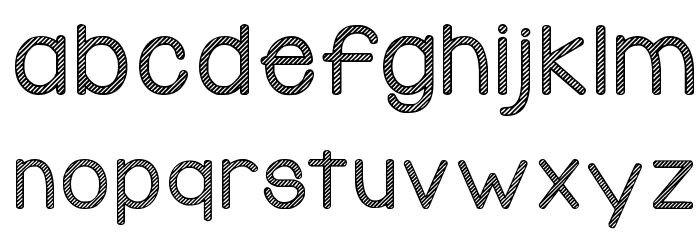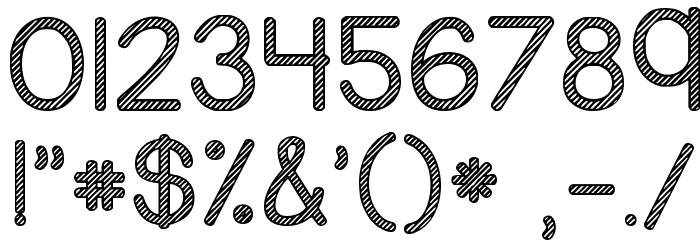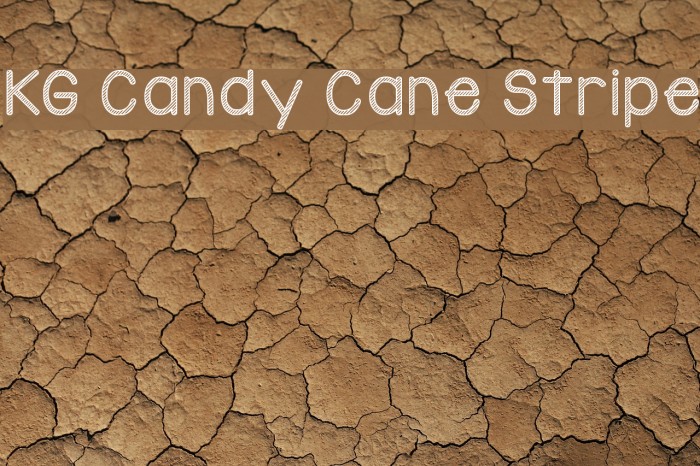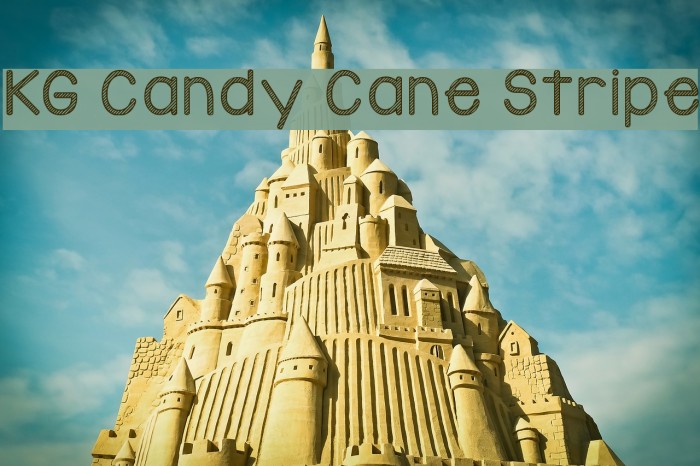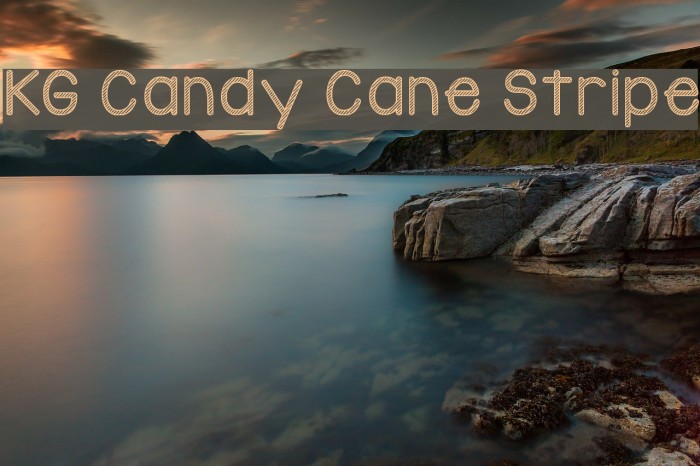
KG Candy Cane Stripe Font
This playful and decorative font features a unique striped pattern reminiscent of candy canes, adding a festive and whimsical touch to any design. The characters are bold and rounded, with a consistent diagonal stripe running through each letter and number, creating a sense of movement and fun. The uppercase and lowercase letters maintain a uniform style, while the numerals and special characters complement the overall theme. This font is perfect for holiday-themed projects, children's materials, or any design that seeks to capture a sense of joy and celebration.
A playful, striped decorative font ideal for festive designs.
- Proposed Projects: Holiday cards, children's book covers, party invitations, festive banners.